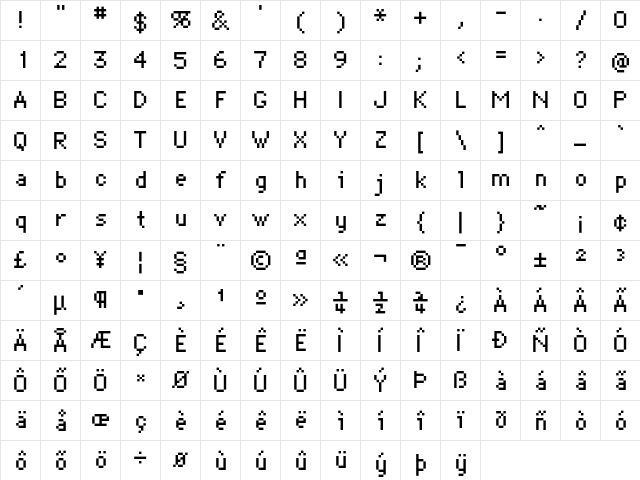
NewGenevaNineICG Regular
Design Context for NewGenevaNineICG Typeface
NewGenevaNineICG takes a measured approach to typography — its balanced proportions and neutral character make it a reliable workhorse for both digital and print work.